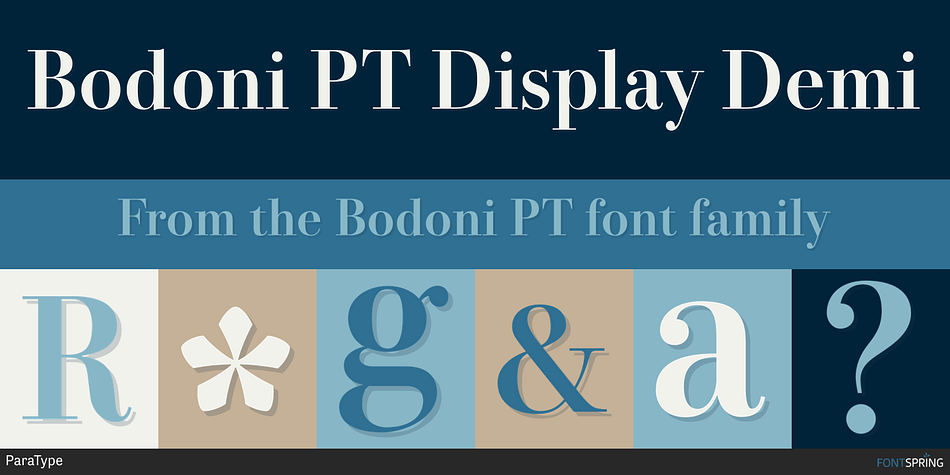
Bodoni PT Display Demi
Designed by Dmitry Kirsanov, Alexandra Korolkova, Alexander Lubovenko, Nikolay Nedashkovsky and Dmitry Goloub, Bodoni PT is a serif and dingbat font family. This typeface has thirty-three styles and was published by ParaType.
Bodoni PT, a contemporary serif with a historical background, is a flexible type system that has fonts for both long paragraphs and extra-large size headings. Bodoni PT is based on the proportions and characteristic features of the typefaces of Giambattista Bodoni, “king of printers and printer of kings.” At the same time, Bodoni PT is fully adapted to modern conditions. It works well on screen and in print, looks natural in text and its design doesn’t look archaic.
Bodoni PT has weights ranging from Regular to Extrabold and a fully realized gradation of optical sizes. Text styles are intended for small sizes. Subhead styles work best for medium and Display – for large and extra-large sizes. Overall, there are 15 upright styles and 15 corresponding italics, two variable fonts as well as a special ornamental style.
The typeface has an extended character set. All styles support European languages based on the Latin and Cyrillic alphabets. All styles have a full palette of typographic capabilities: small caps, proportional and tabular numbers, old style and small-cap figures, indices, and arrows.
The lead designer of Bodoni PT is Dmitry Kirsanov, a major expert in Giambattista Bodoni’s typefaces. Besides him, the Paratype design and technology teams worked on the type too.